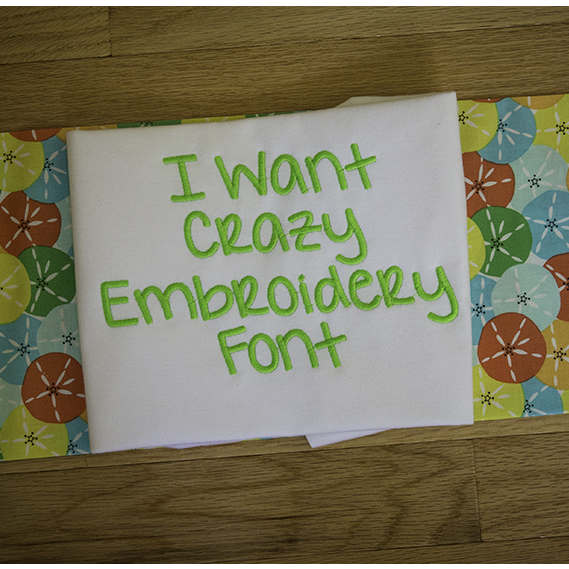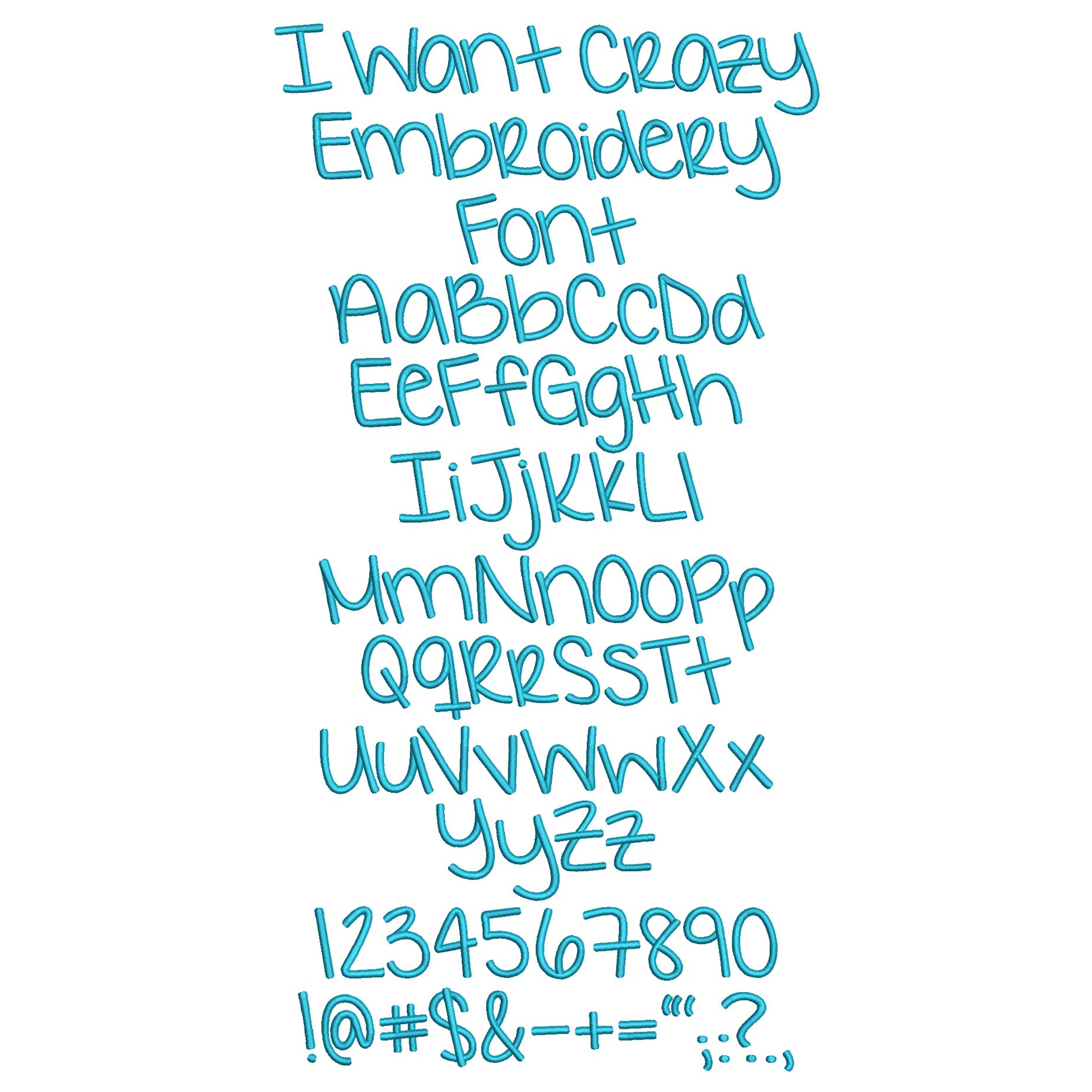
I Want Crazy Satin Stitch Embroidery Font
Another simply sweet embroidery font perfect for boys or girls! All of our font alphabets are 100% manually digitized to bring you maximum stitch quality.